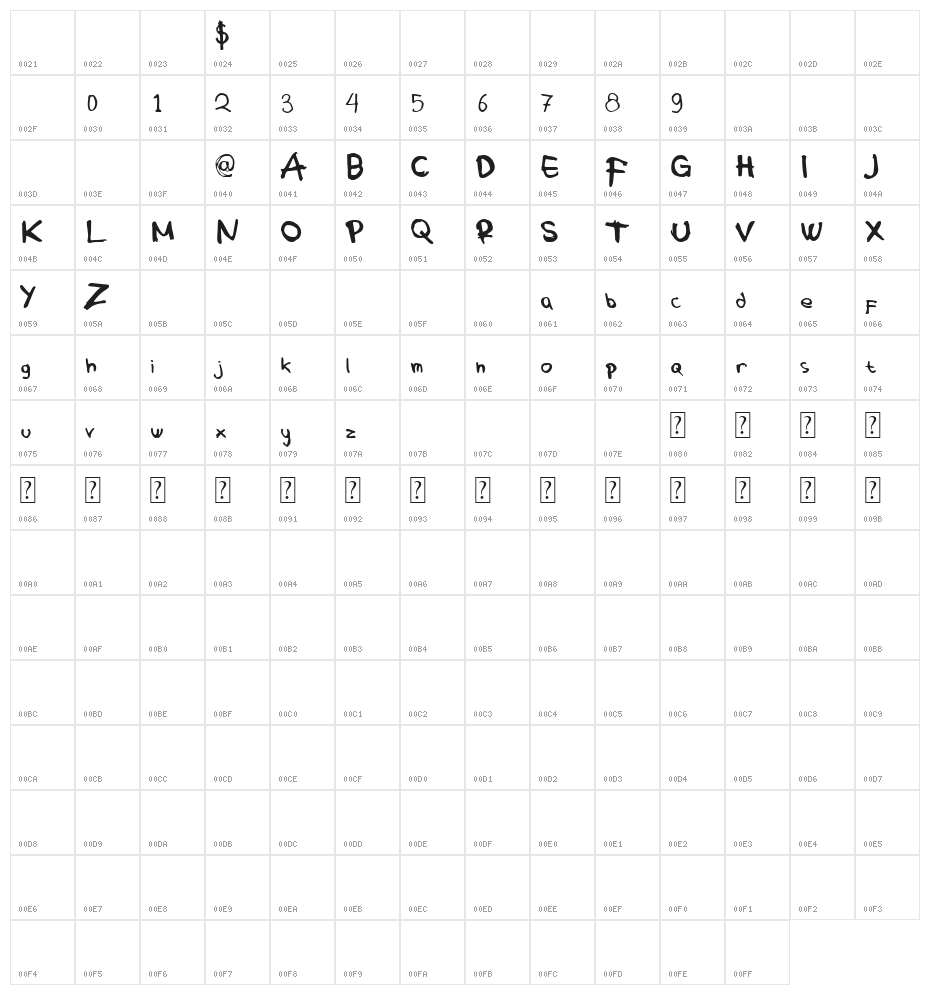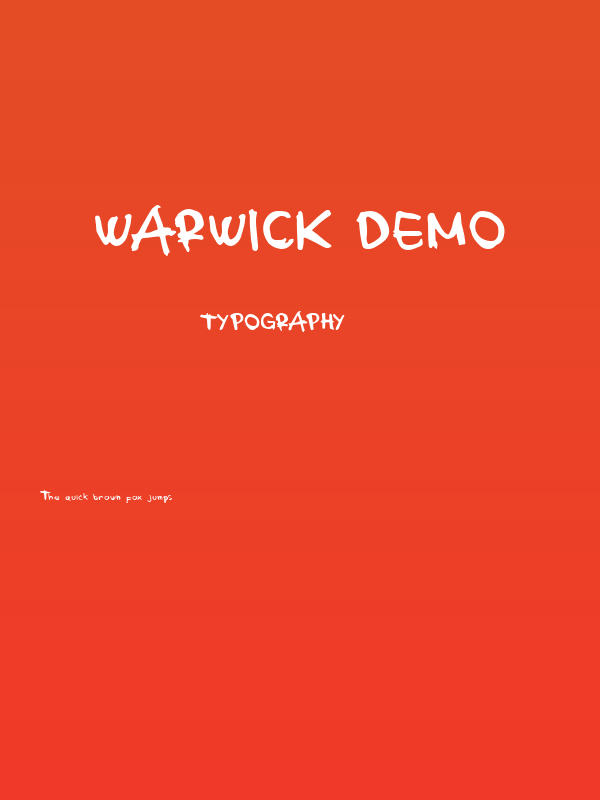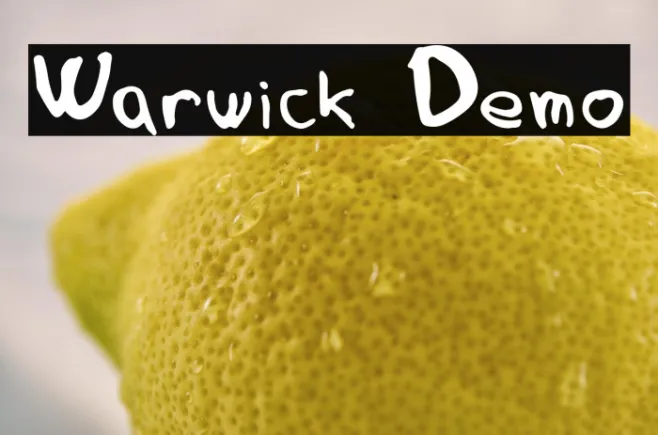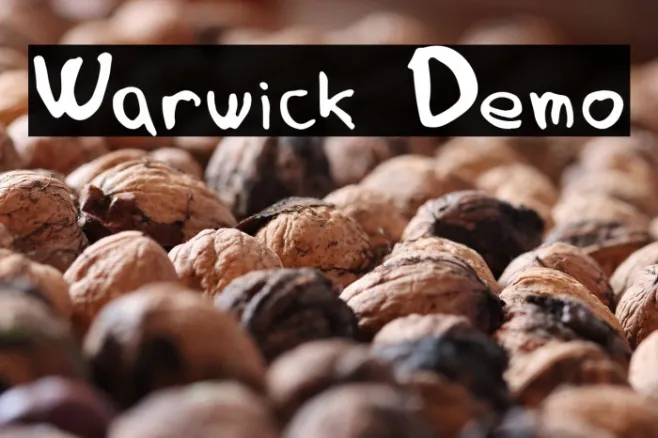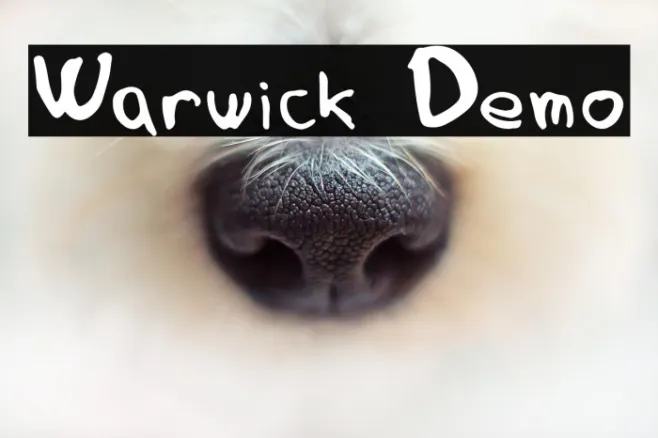
Warwick Demo Font
Warwick Demo Description
This font exudes a playful and casual handwritten style, characterized by its irregular, organic shapes and slightly uneven baseline. The letters have a whimsical, almost childlike quality, with varying stroke widths that add to its charm. The uppercase and lowercase letters maintain a consistent style, with rounded edges and a slightly slanted orientation. The numbers and special characters follow the same playful design, making the font versatile for creative projects. Its unique appearance makes it stand out, ideal for designs that require a personal touch.
| Use Case | Headlines, Logos, Casual Text |
| Proposed Projects | Ideal for greeting cards, children's books, playful branding, and casual invitations. |